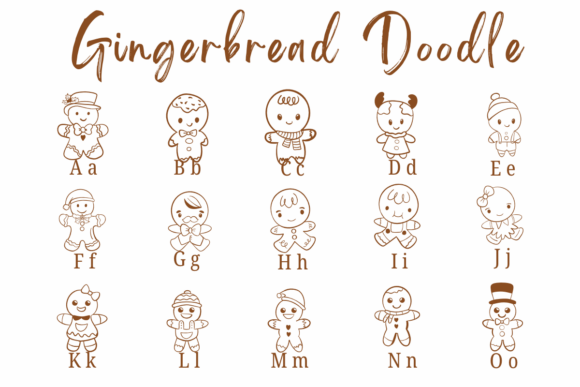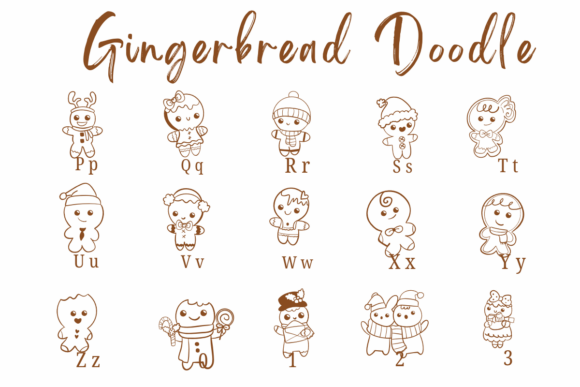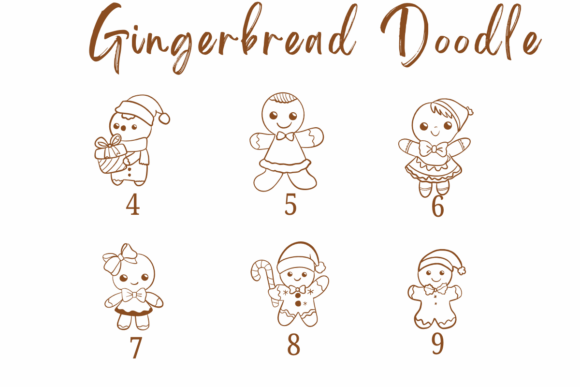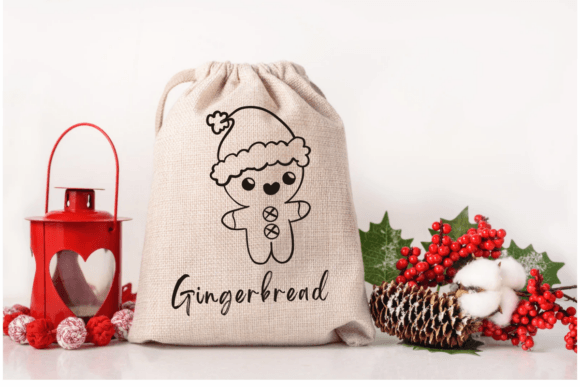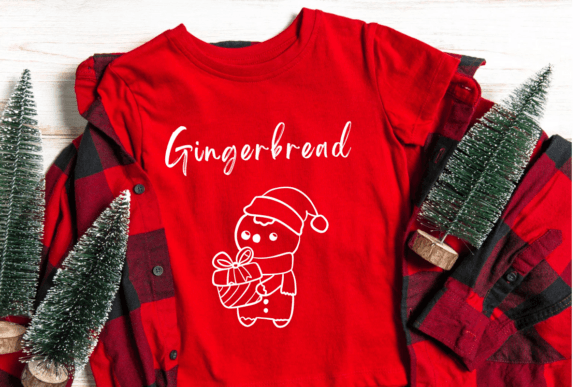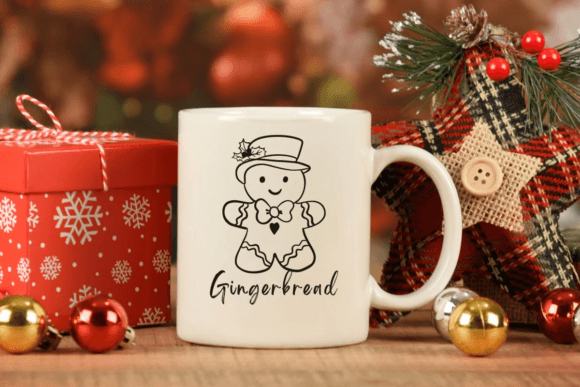
Introduction to Gingerbread Doodle Font
As a designer, there’s nothing quite like the thrill of bringing a creative idea to life. You’re brainstorming ideas for a new project, and suddenly, a spark of inspiration hits – you need a font that’s both whimsical and elegant. That’s where the Gingerbread Doodle Font comes in, a delightful dingbats font that adds a touch of magic to any design.
This charming font is more than just a pretty face; it’s a versatile design resource that can elevate your creative projects to the next level. Whether you’re working on a wedding invitation, a DIY craft, or a logo design, the Gingerbread Doodle Font is sure to add a unique and personalized touch.
With its sketch-style illustrations and transparent background, this font is a high-quality design asset that’s perfect for designers looking to add some extra flair to their work. And the best part? It’s available for free download, making it an invaluable resource for designers of all levels.
Key Features of Gingerbread Doodle Font
- Unique, whimsical design perfect for creative projects and holiday-themed artwork.
- High-quality, scalable vector graphics (SVG) and transparent background for seamless integration into any design.
- Perfect for use in digital design, including web design, graphic design, and print design, due to its high-resolution and transparent background.
- Can be used in various creative projects, such as greeting cards, party decorations, and advertising materials, to add a touch of holiday cheer.
Honest Review: Gingerbread Doodle Font
I recently had the chance to work with the Gingerbread Doodle Font, and I must say, it’s a delightful addition to any creative project. The font is a free download, which is always a bonus, and it comes with a transparent background, making it easy to integrate into your design.
Here are some things that work well: ✨ The font’s playful, whimsical style is perfect for holiday-themed projects or children’s designs. ✨ The high-quality vector format ensures that the font scales well, even when enlarged. ✨ The font is highly customizable, making it a great design resource for designers of all skill levels.
However, there are a few limitations to consider: ⚠️ The font may not be suitable for formal or professional designs, as its playful style may come across as unprofessional. ⚠️ Some users may find the font’s bold lines and colors a bit overwhelming.
Overall, I’m impressed with the Gingerbread Doodle Font. It’s a great resource for designers looking to add a touch of whimsy to their creative projects. While it may not be suitable for every design, it’s a valuable addition to any design library.
For a high-quality look, use the Gingerbread Doodle Font on a transparent background or with a subtle texture to enhance the design. Experiment with different font sizes and colors to add visual interest to your project. You can also combine the font with other design elements, such as images and shapes, to create a unique and creative project.
The Gingerbread Doodle Font is ideal for various creative projects, including invitations, greeting cards, and social media graphics. You can also use it for educational materials, such as worksheets and presentations. With its unique and playful design, the Gingerbread Doodle Font is a valuable design resource for anyone looking to add a touch of whimsy to their work.